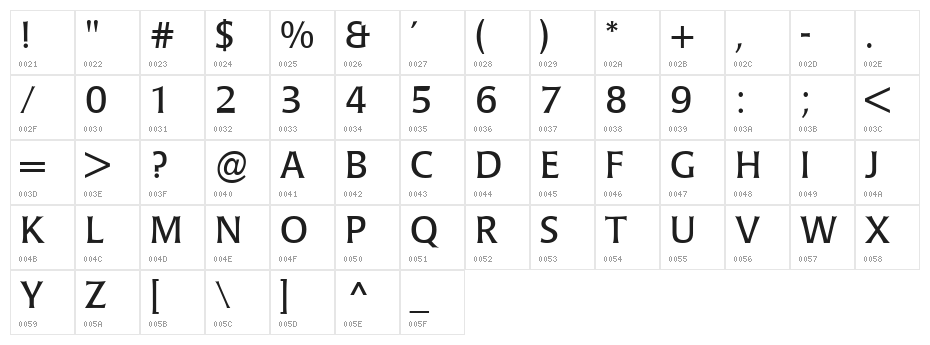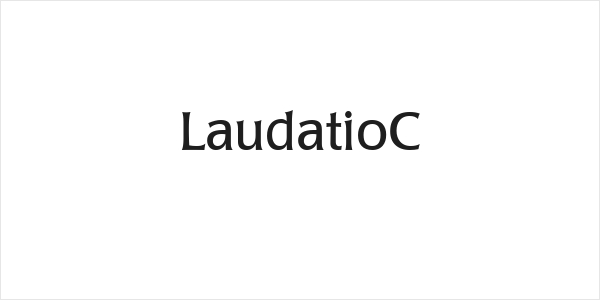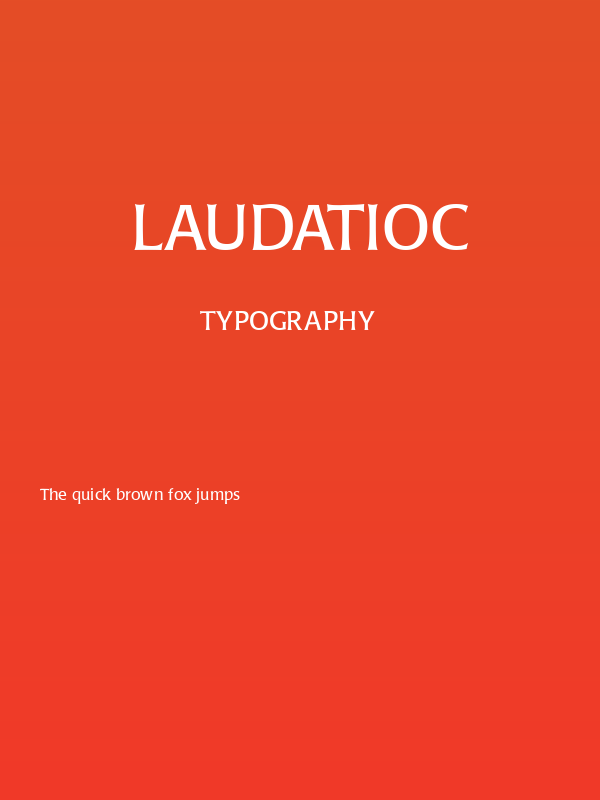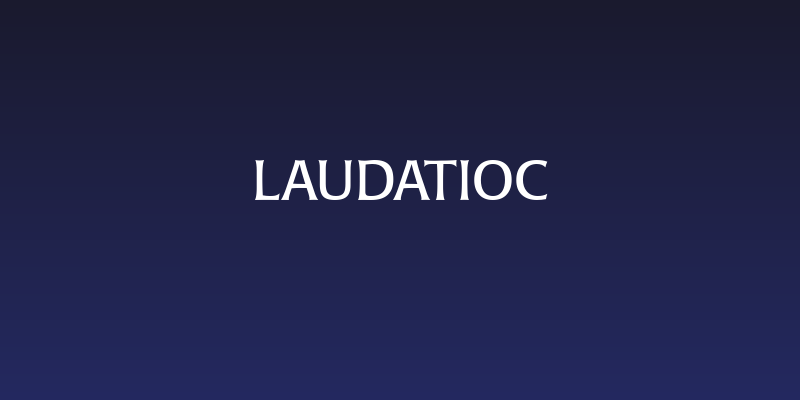
LaudatioC Font
LaudatioC Description
This font features a classic serif style with a modern twist, characterized by its elegant and slightly curved serifs. The uppercase letters are bold and commanding, while the lowercase letters maintain a balanced and readable form. The numerals are clear and distinct, making them suitable for various applications. Special characters are well-defined, adding versatility to the font's usage. The overall design is sophisticated, making it ideal for formal and professional settings.
Overall StyleClassic
Proposed ProjectsIdeal for editorial design, book covers, formal invitations, and corporate branding.